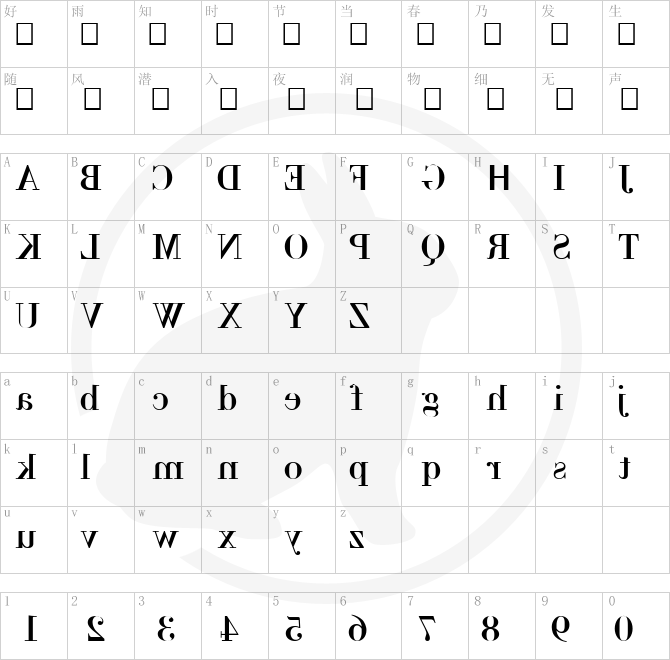
- Font Name:BackBod
BackBod.ttf is a very beautiful artistic font, BackBod.ttf is widely used in the design and printing of various books and pictures,BackBod.ttf has a strong visual impact,BackBod.ttf is a commonly used font in newspapers, magazines and books, and is used in posters, e-commerce Poster design, store design, logo design, font design and other fields.BackBod.